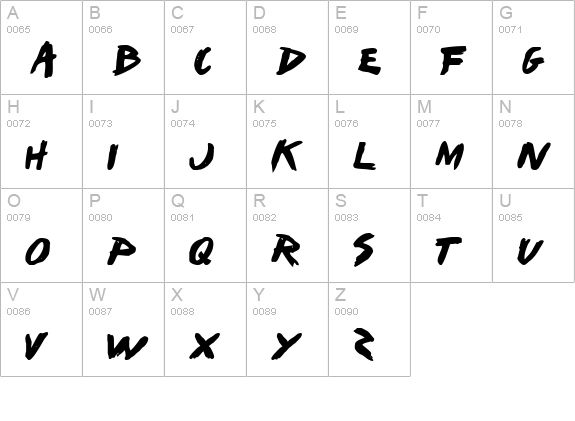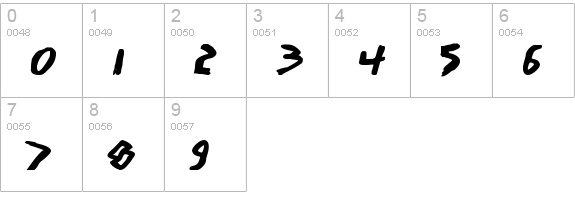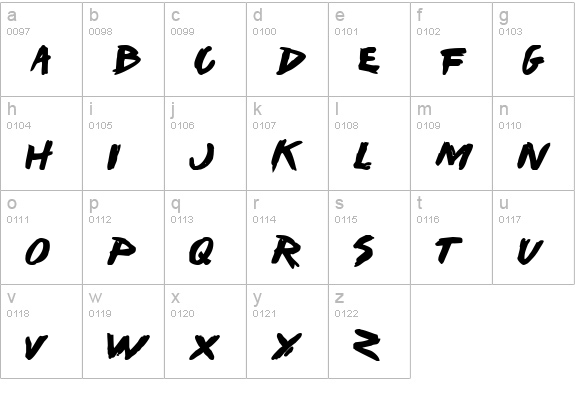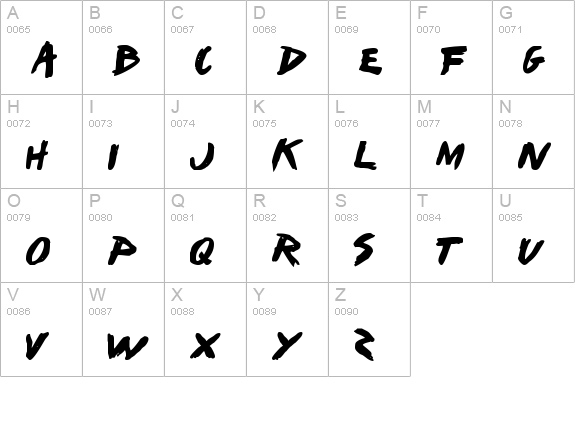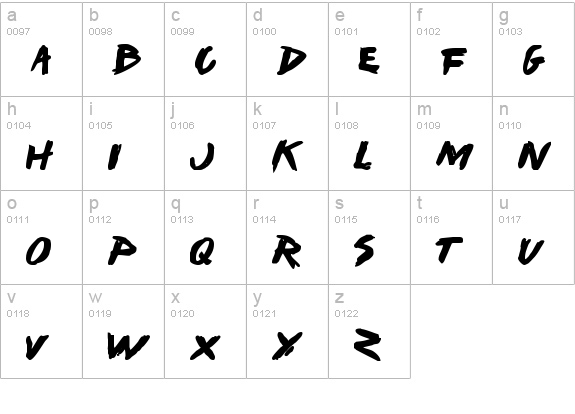
I Want My TTR! Bold Font Details
I Want My TTR! Bold is a strong, high-contrast variant in the I typeface family \xE2\x80\x94 well suited to headlines, attention-grabbing titles, and strong calls-to-action.
Introducing the stunning and captivating font, I Want My TTR! Bold. This font exudes a sense of boldness and confidence, making it perfect for any design project that requires a strong and impactful statement. With its thick and prominent lines, this font commands attention and ensures that your message will not go unnoticed. I Want My TTR! Bold is not only visually striking, but it also offers a level of versatility that is truly impressive. Whether you are designing a logo, a poster, or even a website, this font will effortlessly adapt to any style or theme, ensuring that your project stands out from the crowd. But what makes I Want My TTR! Bold even more remarkable is the fact that it is completely free. Yes, you read that right! This extraordinary font is freely available to download at FontsMarket.com, making it accessible for designers of all levels. Say goodbye to costly font licenses and hello to creative freedom. With I Want My TTR! Bold, you can unleash your imagination and bring your designs to life without any limitations. Its bold and sleek aesthetic adds a touch of modernity to any project, while its easy-to-read nature ensures that your message is conveyed effortlessly. So why wait? Download I Want My TTR! Bold today from FontsMarket.com and elevate your designs to new heights. Whether you're a professional designer or simply someone who loves experimenting with typography, this font is a must-have in your collection. Don't miss out on the opportunity to make a lasting impression with I Want My TTR! Bold.